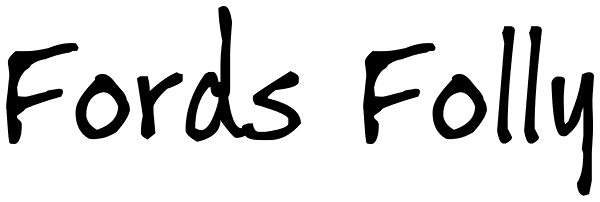
Fords Folly
Ford's Folly is a lively yet sophisticated handwriting font designed by Ascender's Jim Ford. It captures the look and spirit of the designer's handwriting using a Sharpie™ Extra Fine felt pen. This casual script font evokes an energetic...